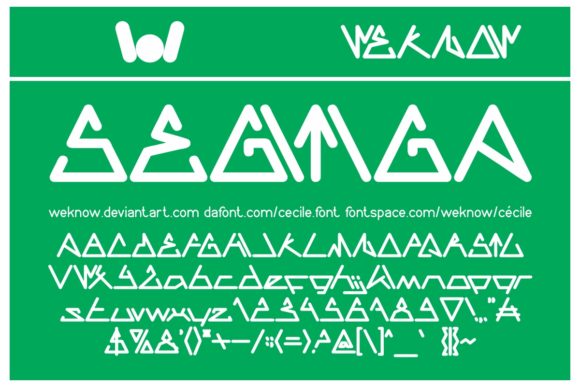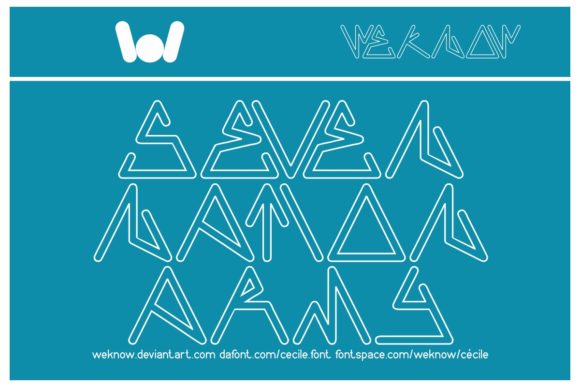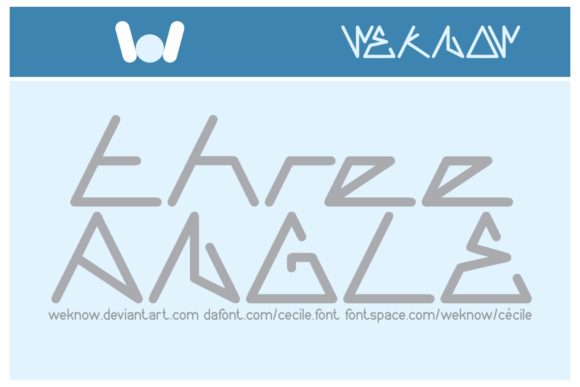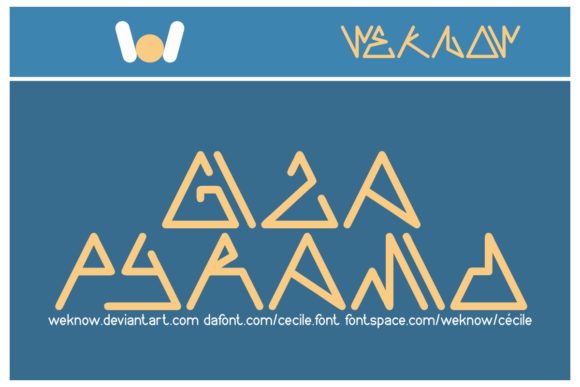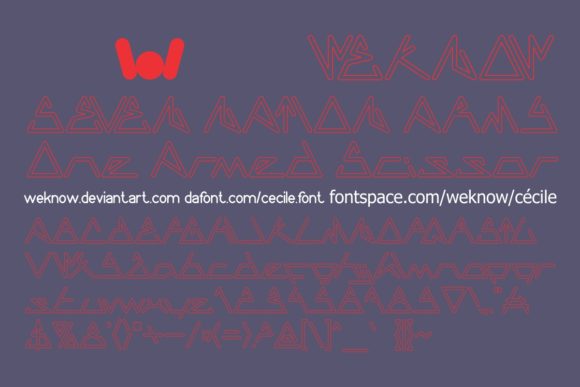
Cecile Font: Celebrating Eclectic Beauty in Abstract Shapes
In the world of typography, few fonts manage to capture the essence of eclectic beauty as effectively as Cecile. This playfully conceptual display typeface font is a masterclass in abstract shapes, boasting a unique charm that sets it apart from more traditional fonts. With its wide range of applications, Cecile is a versatile addition to any designer’s toolkit, offering a fresh perspective on creative expression.
The Inspiration Behind Cecile
Cecile’s design is rooted in the celebration of abstract shapes, embracing the beauty of irregular forms and unconventional lines. The font’s creator drew inspiration from various sources, including street art, graffiti, and abstract expressionism. The result is a font that exudes a sense of playfulness and spontaneity, perfect for designers looking to add a touch of personality to their work.
Cecile’s design characteristics are what set it apart from other fonts. Its abstract shapes and eclectic lines create a visually striking effect, making it perfect for headlines, titles, and other display text. The font features:
- Unique letterforms: Each letter in Cecile has its own distinct character, with irregular shapes and lines that add to the font’s eclectic charm.
- Playful typography: Cecile’s typography is playful and spontaneous, with a sense of energy and movement.
- Versatile applications: Cecile can be used in a wide range of contexts, from digital media to print materials, and from advertising to art.
What Makes Cecile Stand Out
Cecile’s standout feature is its ability to add a touch of personality to any design. Its abstract shapes and eclectic lines create a unique visual identity that sets it apart from more traditional fonts. Whether used for a headline, title, or logo, Cecile is sure to grab attention and leave a lasting impression.
Applications for Designers and Crafters
Cecile’s versatility makes it an excellent choice for a wide range of applications, including:
- Branding and logos: Cecile’s unique character makes it perfect for creating memorable logos and brand identities.
- Advertising and marketing: Cecile’s playful typography and abstract shapes make it ideal for attention-grabbing headlines and titles.
- Art and design: Cecile’s eclectic beauty makes it a great choice for artists and designers looking to add a touch of personality to their work.
- Crafting and DIY projects: Cecile’s fun and playful nature make it perfect for crafters and DIY enthusiasts looking to add a personal touch to their projects.
Tips for Using Cecile Effectively
To get the most out of Cecile, here are a few tips to keep in mind:
- Use it sparingly: Cecile’s bold and playful nature makes it best suited for display text. Use it sparingly to create a lasting impression.
- Experiment with colors: Cecile’s abstract shapes and eclectic lines look great in a variety of colors. Experiment with different color schemes to find the perfect fit for your design.
- Pair it with complementary fonts: Cecile’s unique character makes it a great choice for pairing with complementary fonts. Experiment with different font combinations to find the perfect balance.
Cecile is a truly unique and versatile font that celebrates the beauty of abstract shapes and eclectic lines. Its playful typography and bold character make it perfect for designers and crafters looking to add a touch of personality to their work. With its wide range of applications and endless possibilities, Cecile is a font that’s sure to inspire creativity and bring a fresh perspective to any design.